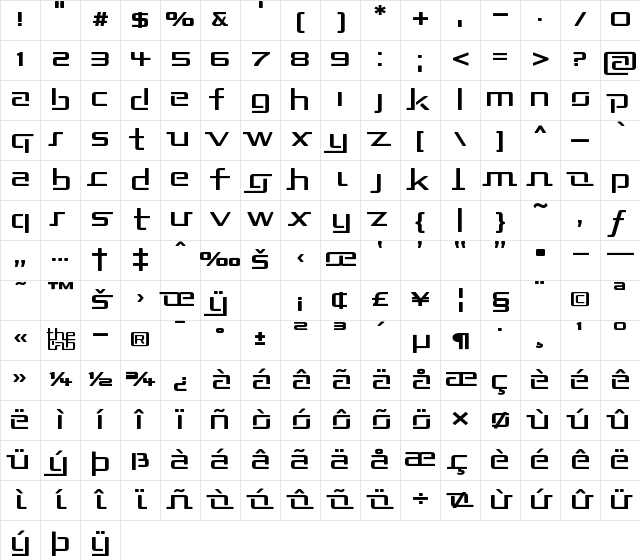
Republika II Exp Regular
Designer: Apostrophe
Republika II Exp Family
Republika II Exp Regular
Design Context for Republika II Exp
Republika II Exp is a composed and adaptable typeface that performs quietly and consistently across a wide range of design contexts.